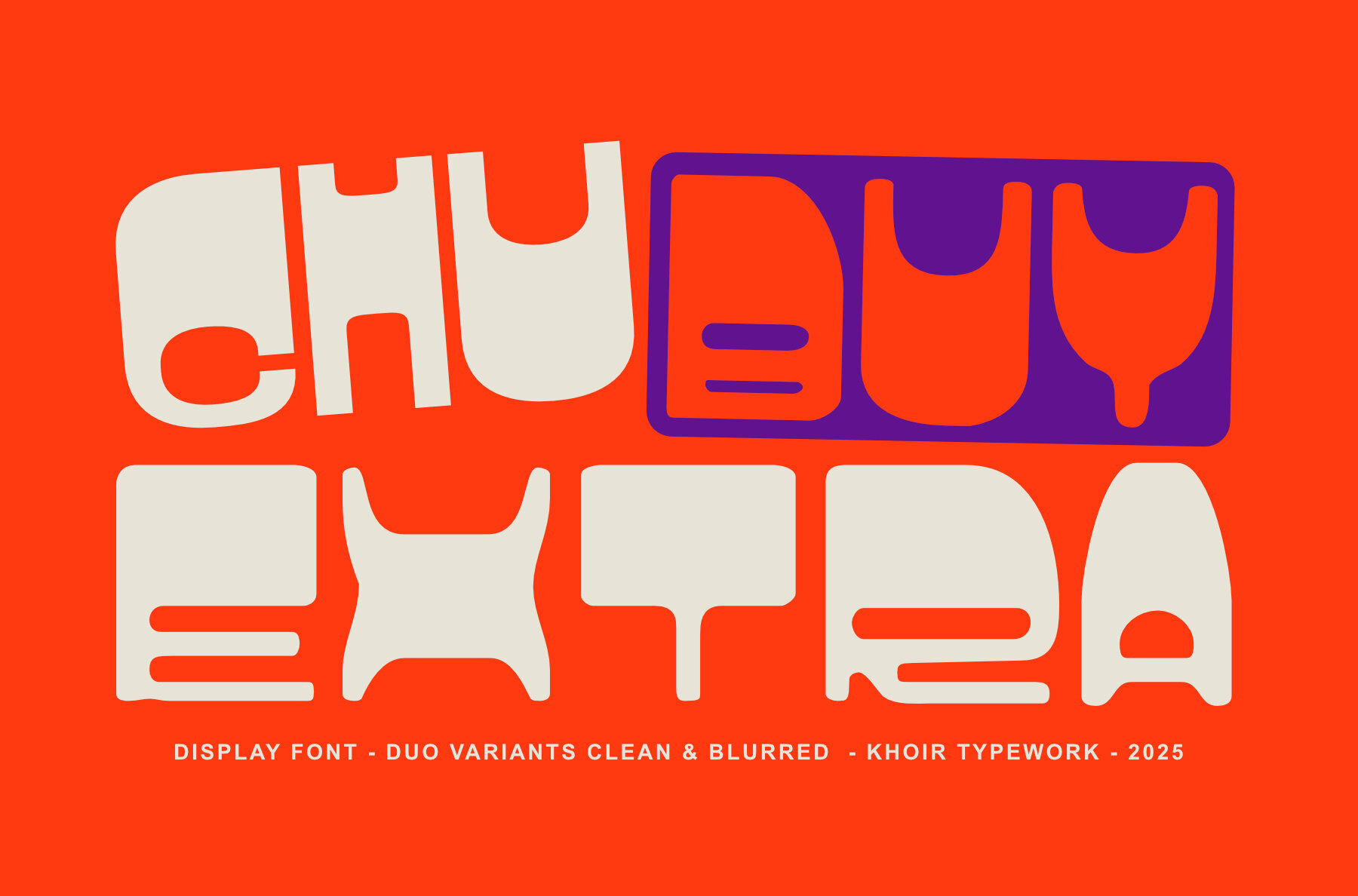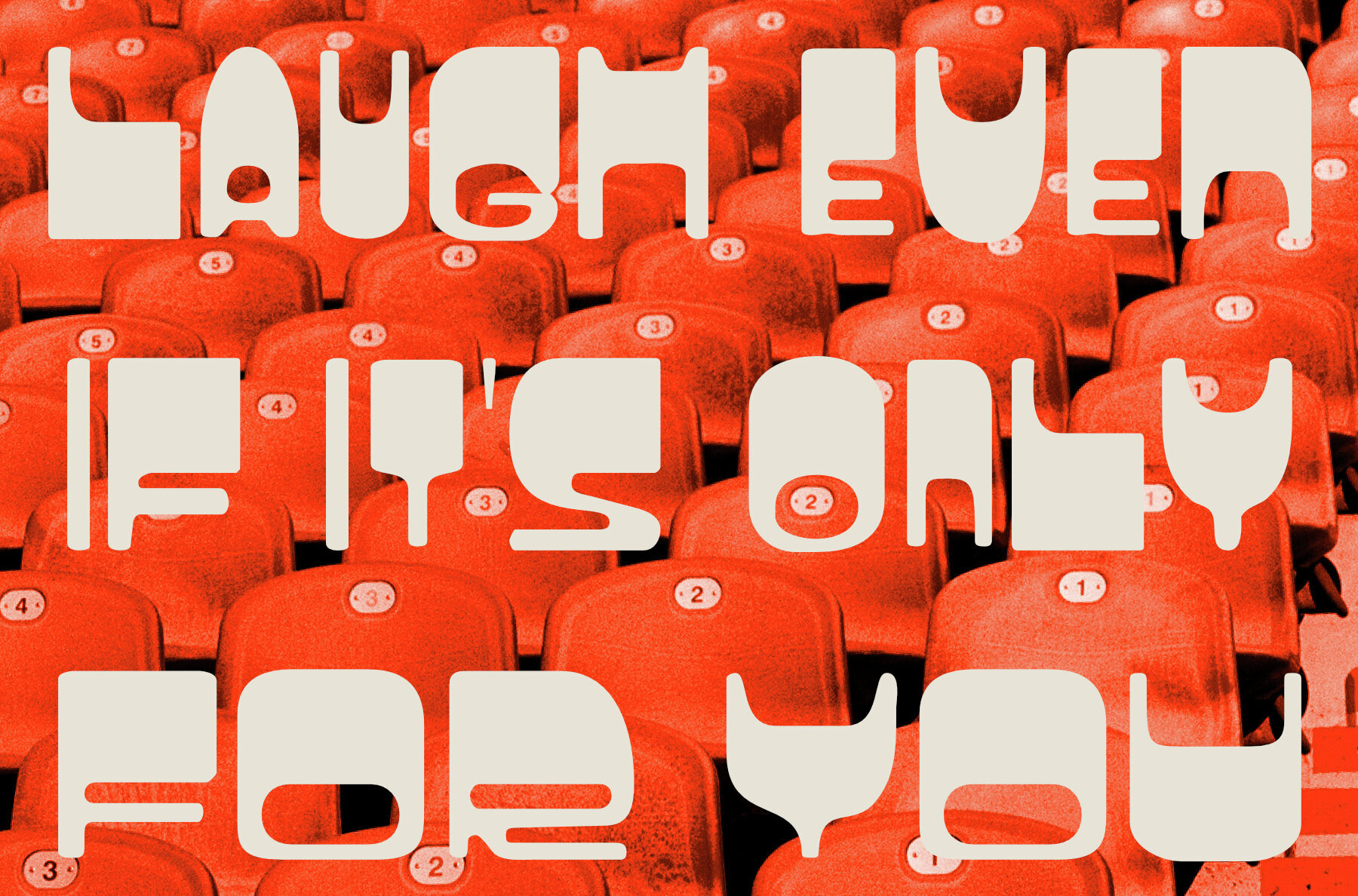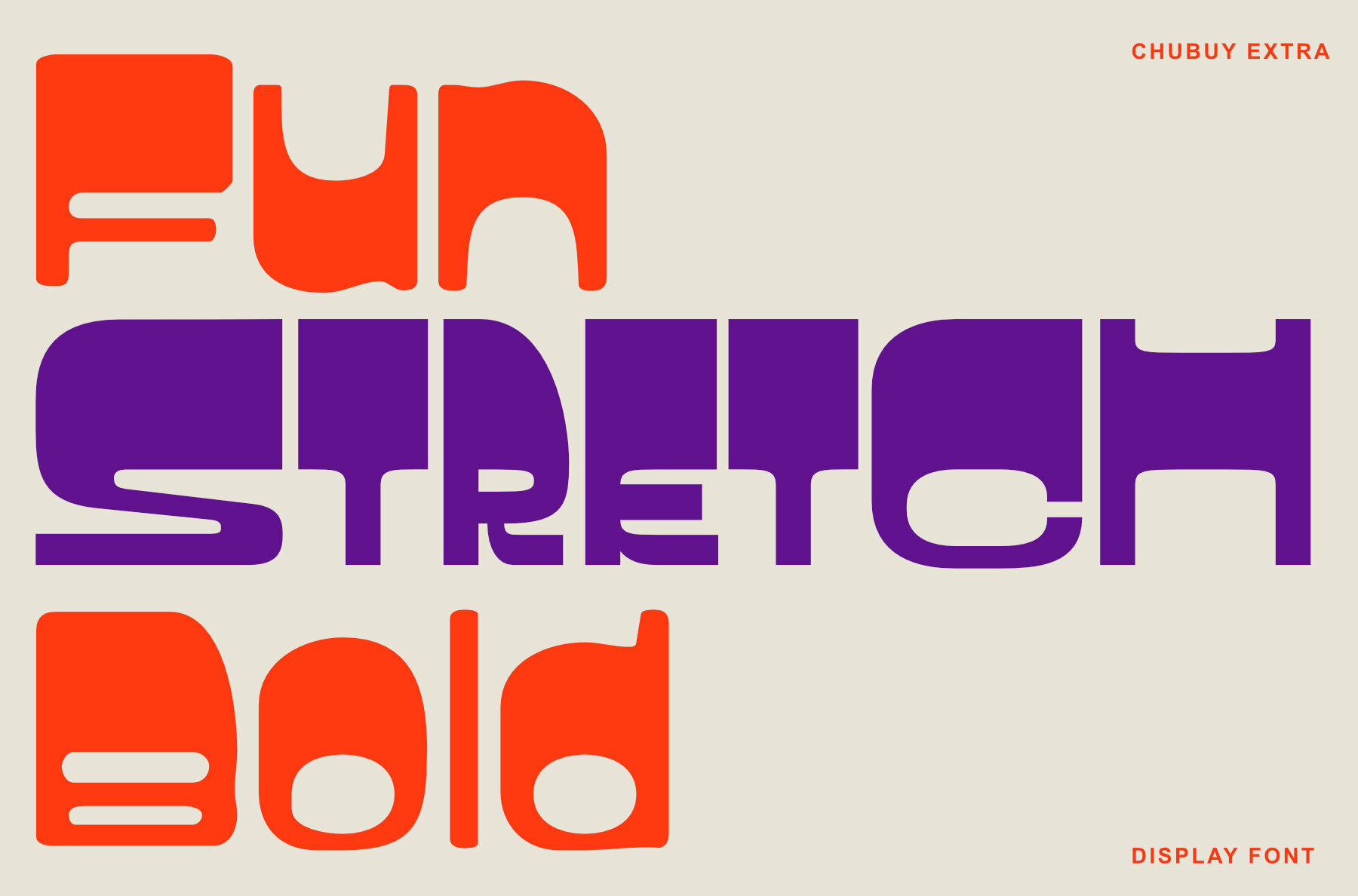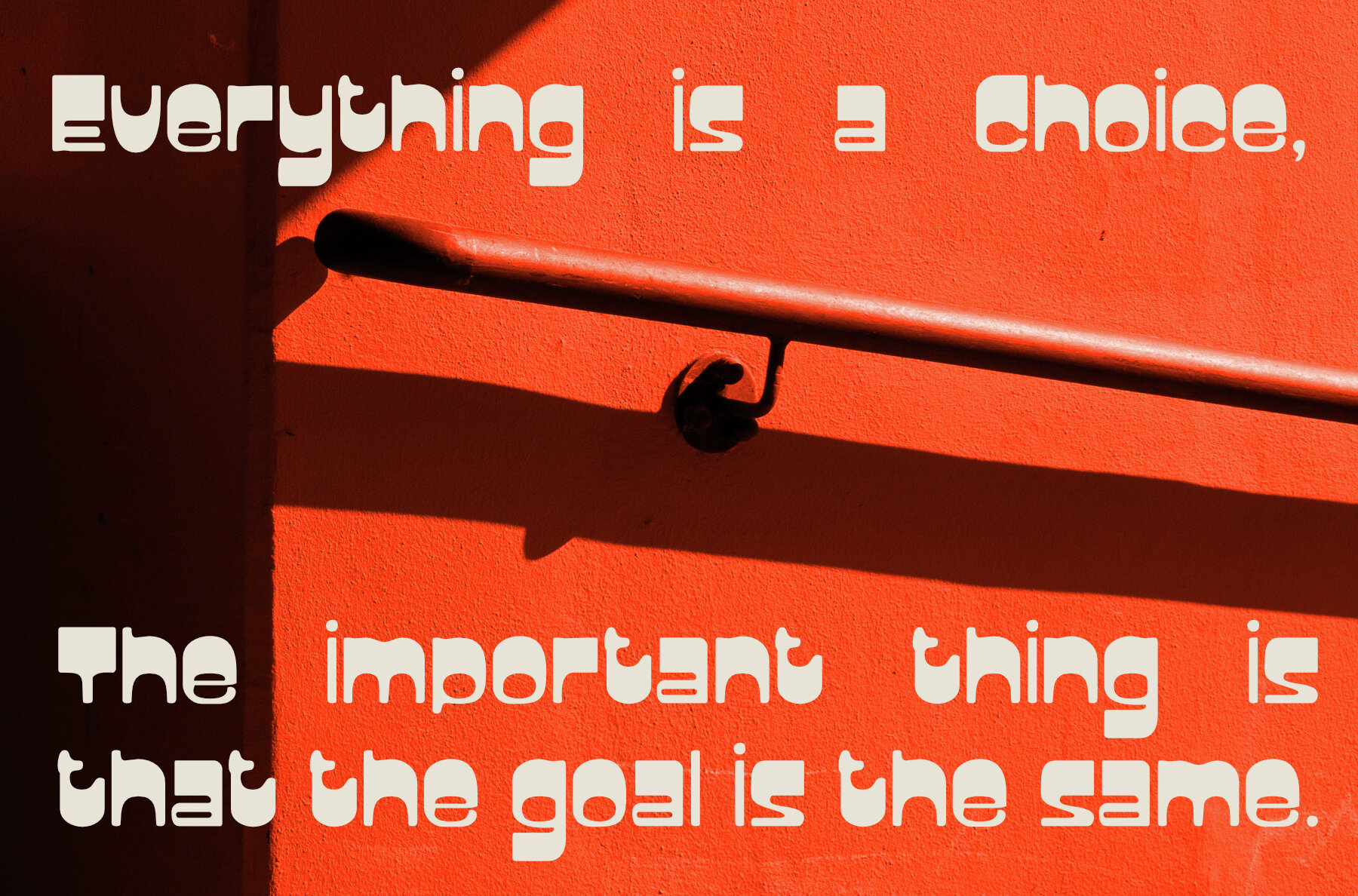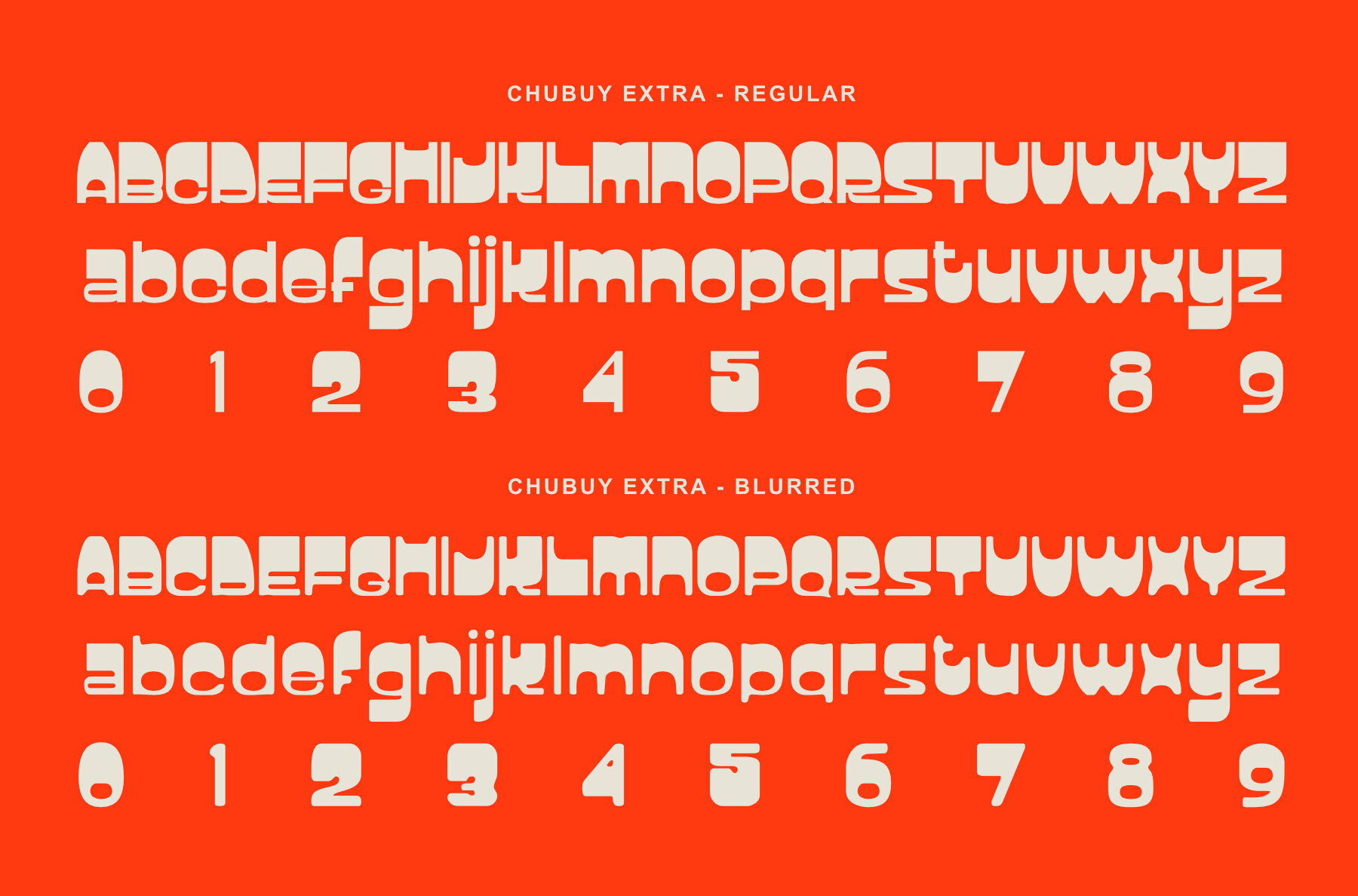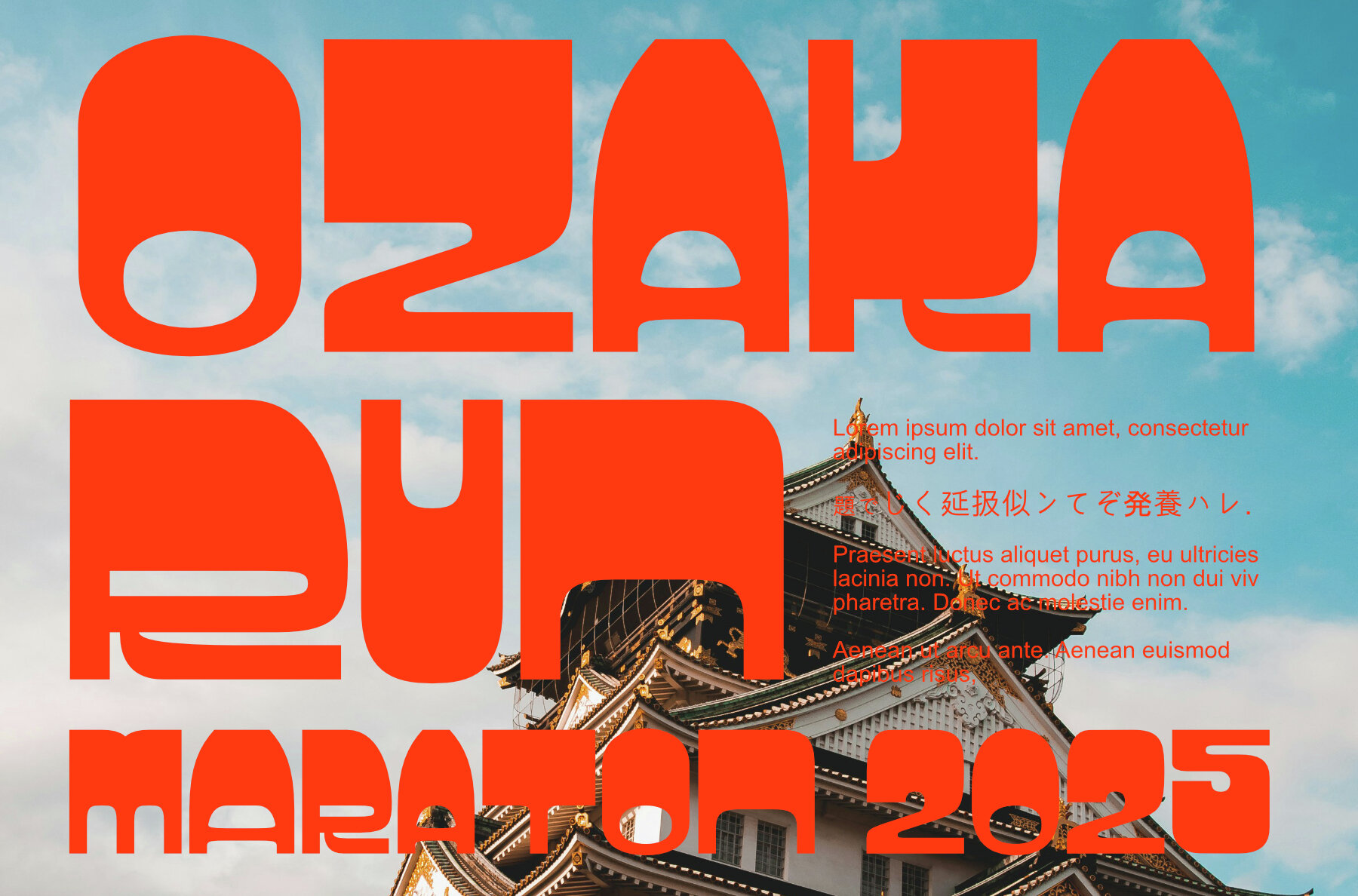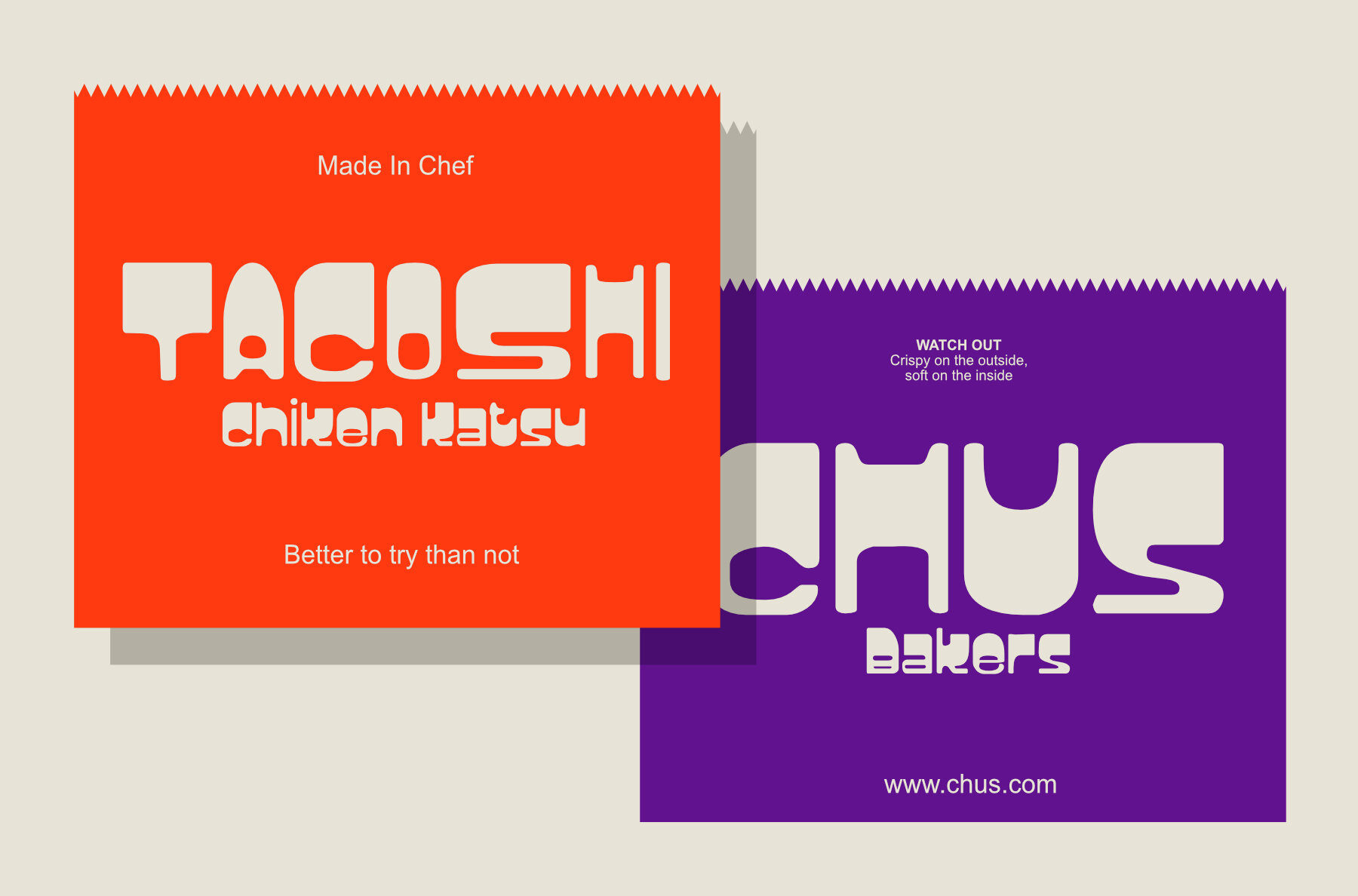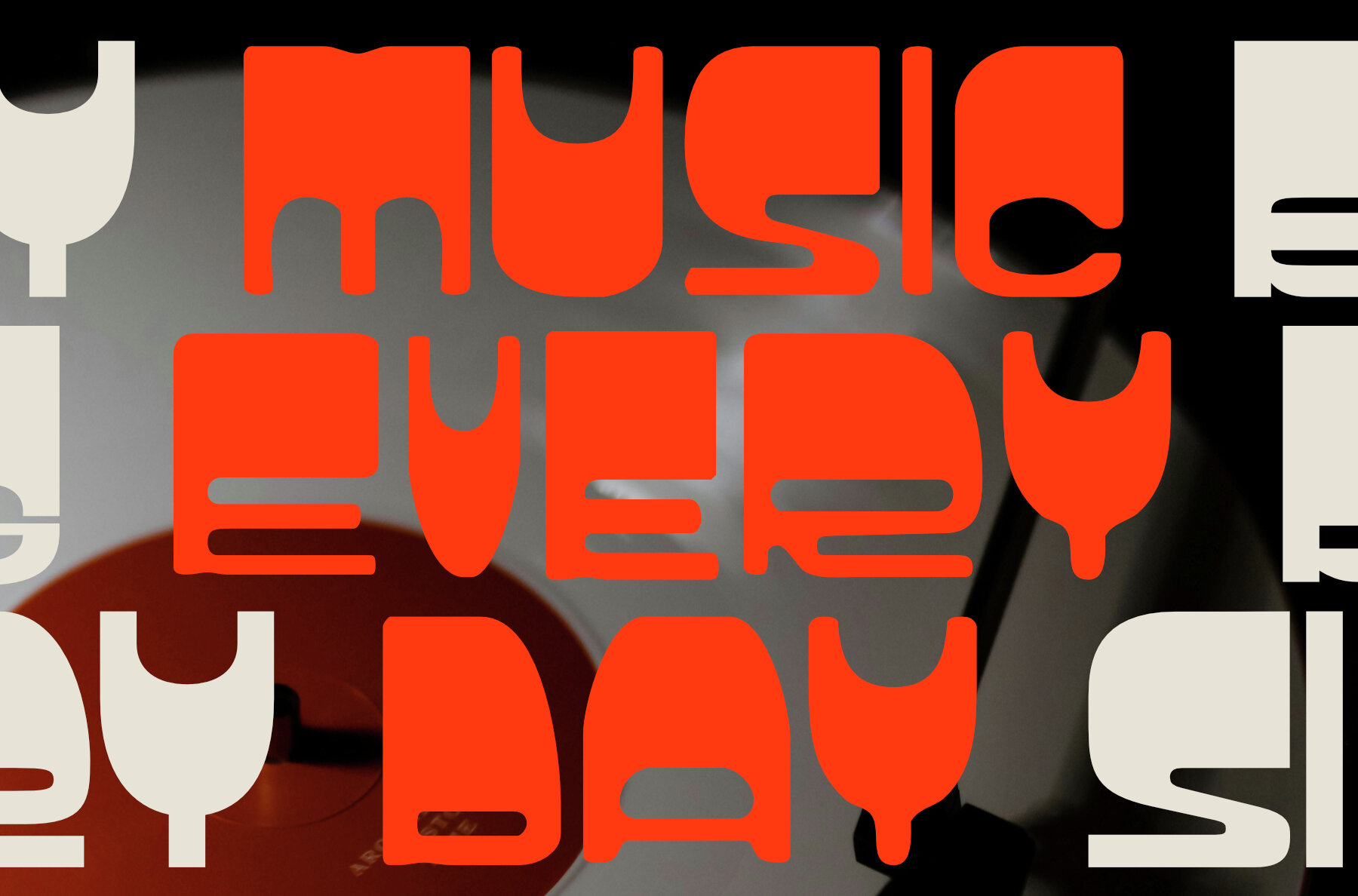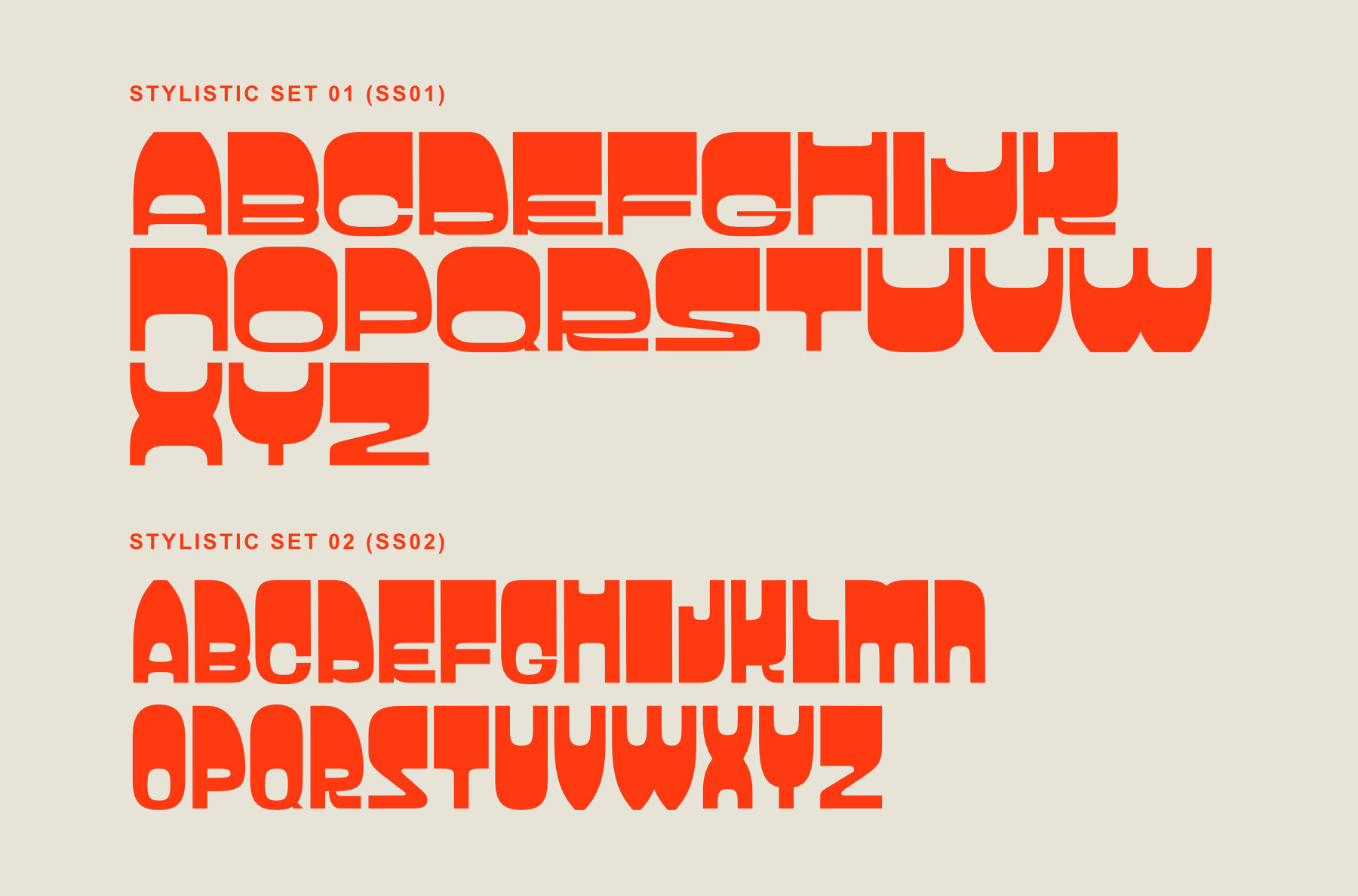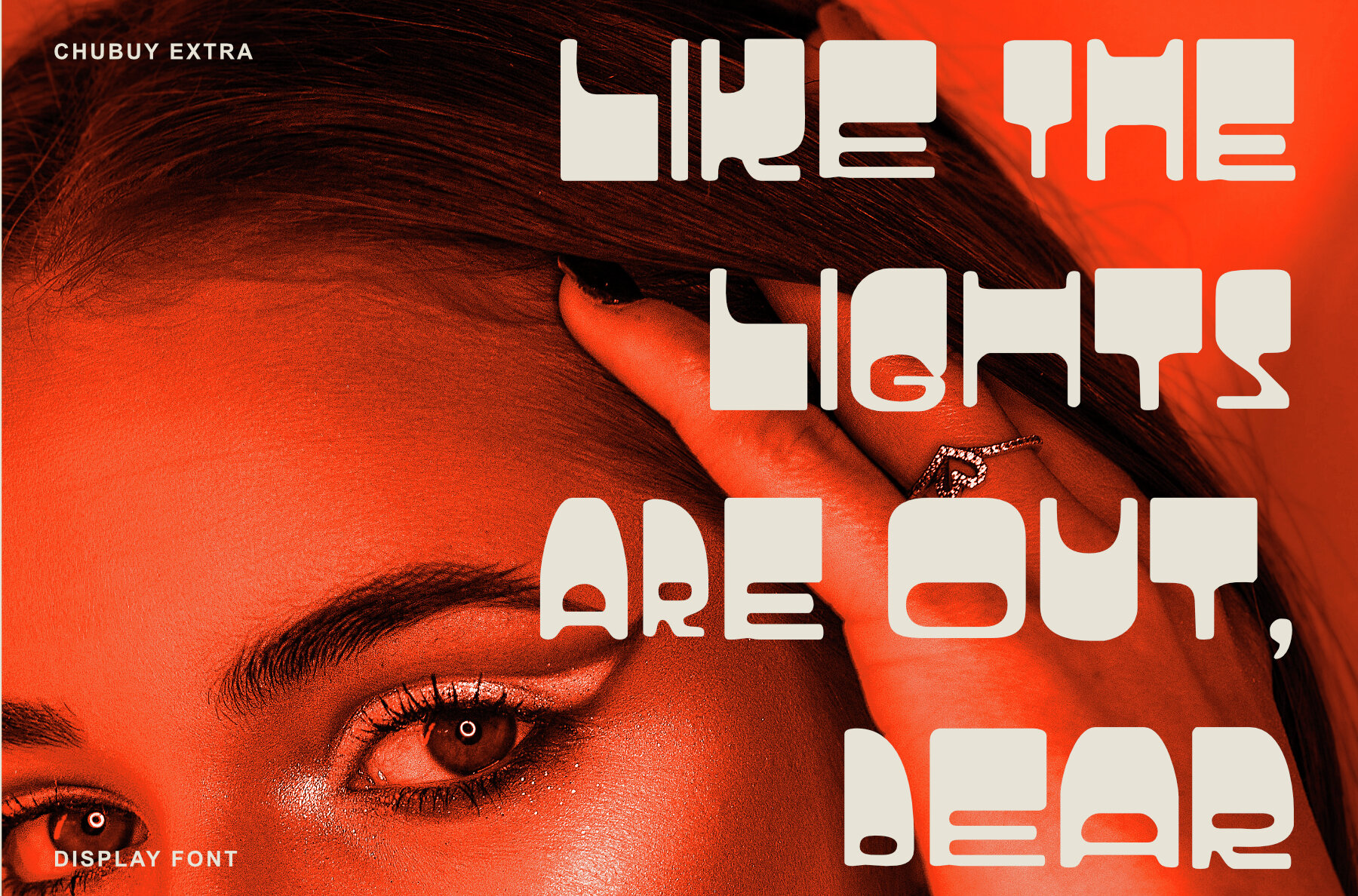
Chubuy Font
Chubuy brings a captivating blend of weight and versatility, making it an essential addition to any designer's toolkit. Its slightly heavier top offers a unique visual appeal, while two distinct variants—regular and blurred—provide flexibility across diverse applications. Whether embellishing event posters, enhancing packaging designs, or crafting memorable company logos, Chubuy adapts effortlessly to meet creative demands.Chubuy: Dynamic Typography with Distinctive Styles